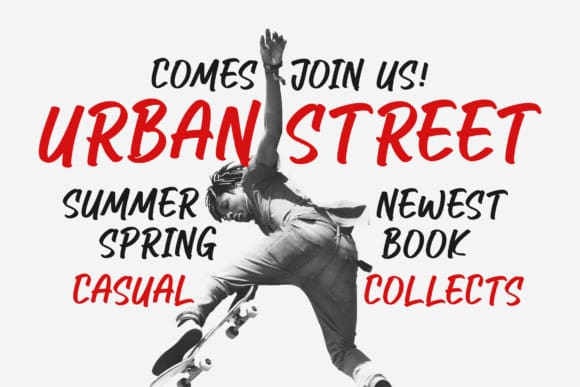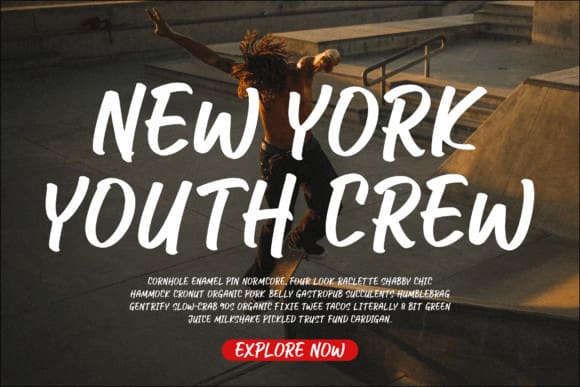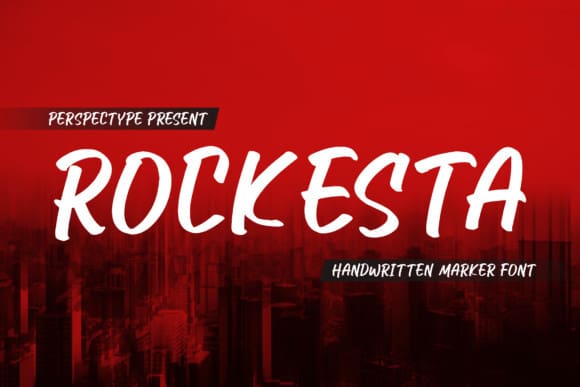
Rockesta Font
Rockesta Font – Handwritten Marker Font suitable for any projects such as: logos, branding projects, homeware designs, product packaging, mugs, quotes, posters, shopping bags, t-shirts, book covers, name cards, invitation cards, greeting cards, labels, photography, watermark, special events, and all your other lovely projects that need a beautiful script taste.